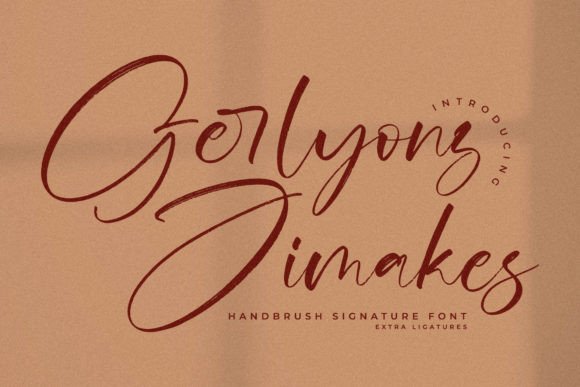
Journey into the enchanting world of Gerlyonz Jimakes, a script font family that captures the essence of elegance and uniqueness. Its carefully crafted handwritten strokes add a touch of personal charm to a wide range of digital creations, making it the perfect choice for those seeking a personalized style.
Unleash your creativity with Gerlyonz Jimakes, the perfect font for designing heartfelt wedding invitations that exude romance and sophistication. Its flowing lines and graceful curves will elevate your invitations to a work of art, leaving a lasting impression on your guests.
Express your gratitude with Gerlyonz Jimakes, a font that transforms simple thank-you cards into heartfelt expressions of appreciation. Its elegant characters lend a touch of sincerity and warmth, ensuring that your gratitude reaches the recipient's heart.
Create eye-catching greeting cards with Gerlyonz Jimakes, the font that brings your heartfelt messages to life. Its playful and whimsical style adds a delightful touch, making your cards stand out from the ordinary and bringing joy to the recipient's day.
Design captivating logos with Gerlyonz Jimakes, the font that adds a touch of distinction to your brand identity. Its unique and memorable style ensures that your logo makes an unforgettable impression, leaving a mark on the minds of your customers.